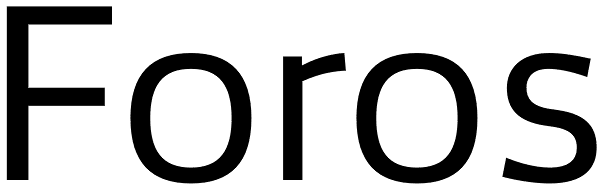
Foros
Foros(tm) is a modern humanist sanserif font family of 8 styles. Each style contains beside many other alternatives of upper and lowercase letters a 'unicase' character set. Foros is a development of a modern pattern of rough geometric shapes in...